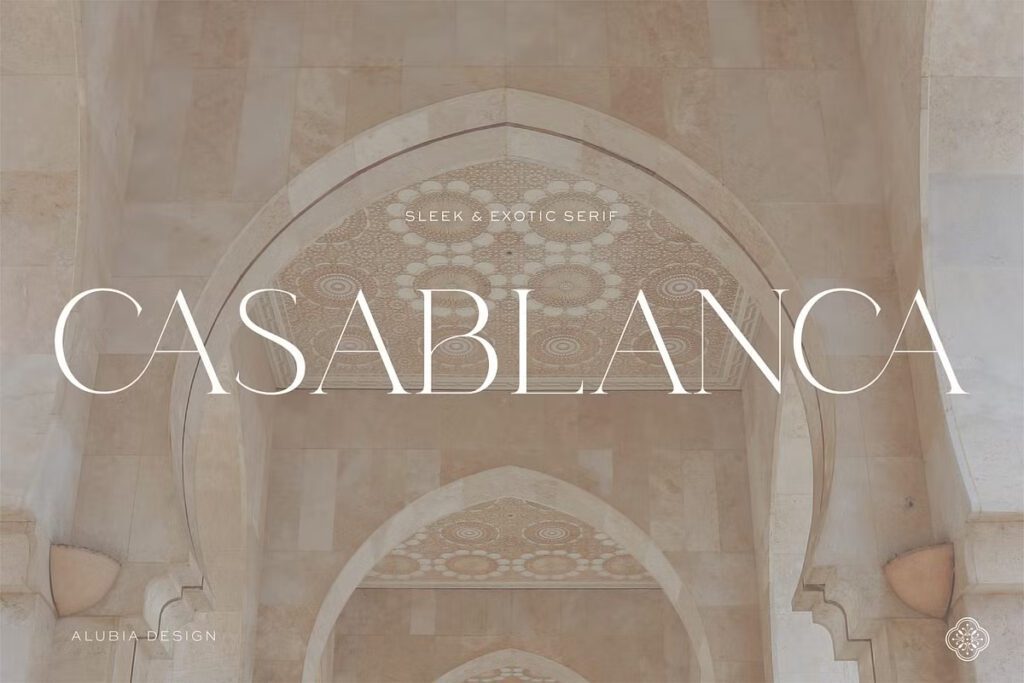
Introducing Casablanca – A Sleek & Exotic Serif for Elegant Designs
Looking for a typeface that brings sophistication and elegance to your creative projects? Meet Casablanca, a sleek and exotic serif font designed with beautifully crafted ligatures, perfect for adding a refined touch to your designs. Whether you’re working on branding, invitations, or editorial layouts, Casablanca’s exquisite balance of modern and classic typography makes it an ideal choice.
Why Choose Casablanca?
Elegantly Crafted Ligatures: Casablanca offers uppercase and lowercase letters with stunning ligatures, bringing uniqueness to every word.
Multilingual Support: The font includes multilingual characters, allowing for global appeal in your designs.